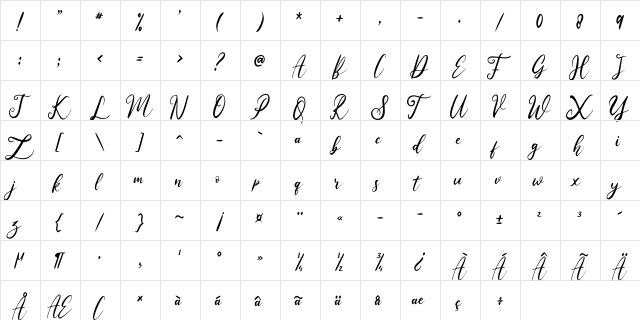
Austria Memories Regular
| Designer | Sarwo Edhi Prayitno |
Design Context for Austria Memories Typeface
Austria Memories is a composed and adaptable typeface that performs quietly and consistently across a wide range of design contexts.